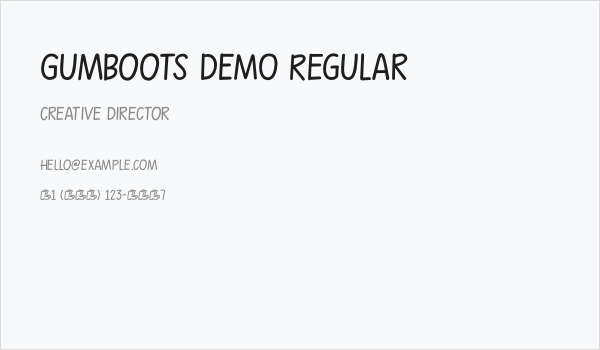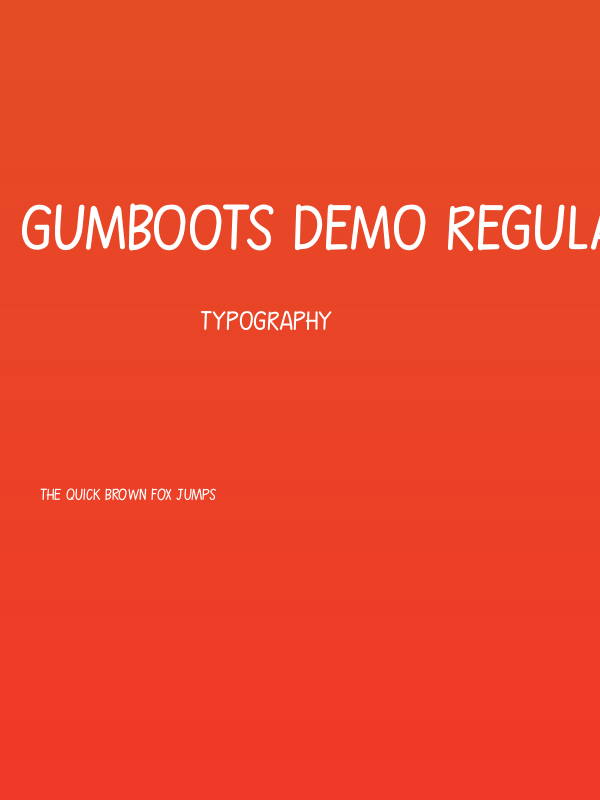
Gumboots DEMO Regular Font
Gumboots DEMO Regular Description
This playful and whimsical font features a handwritten style with bold, rounded strokes that give it a friendly and approachable appearance. The characters are slightly irregular, adding to the casual and informal feel. The font includes both uppercase and lowercase letters, numbers, and a selection of special characters. Its unique design is characterized by consistent stroke thickness and a moderate spacing between characters, making it easy to read while maintaining its distinctive charm.
| Use Case | Logos, Headlines, Informal Text |
| Proposed Projects | Ideal for children's books, playful branding, greeting cards, and informal invitations. |